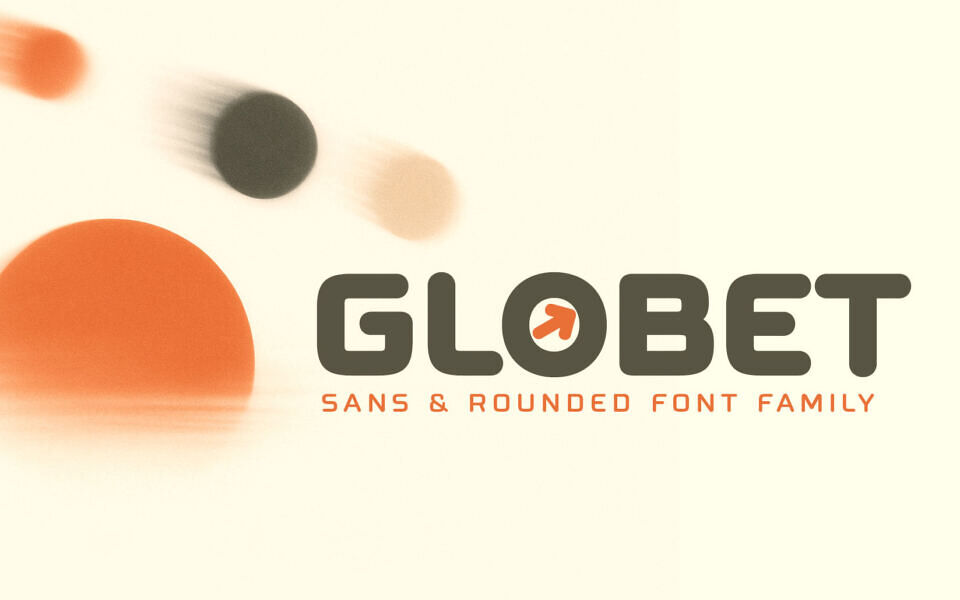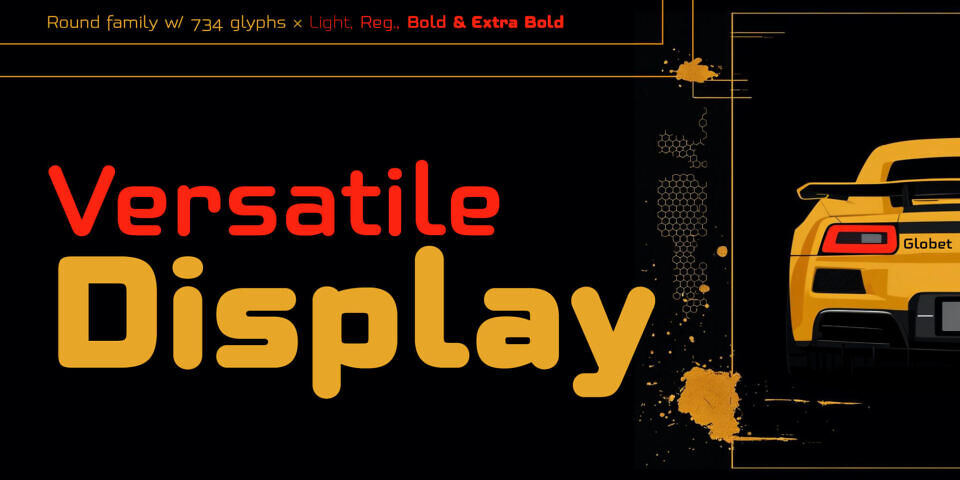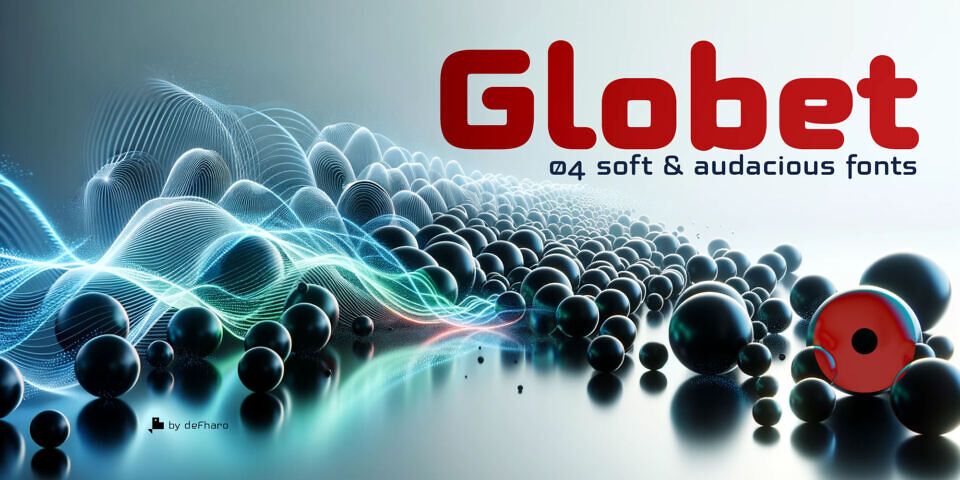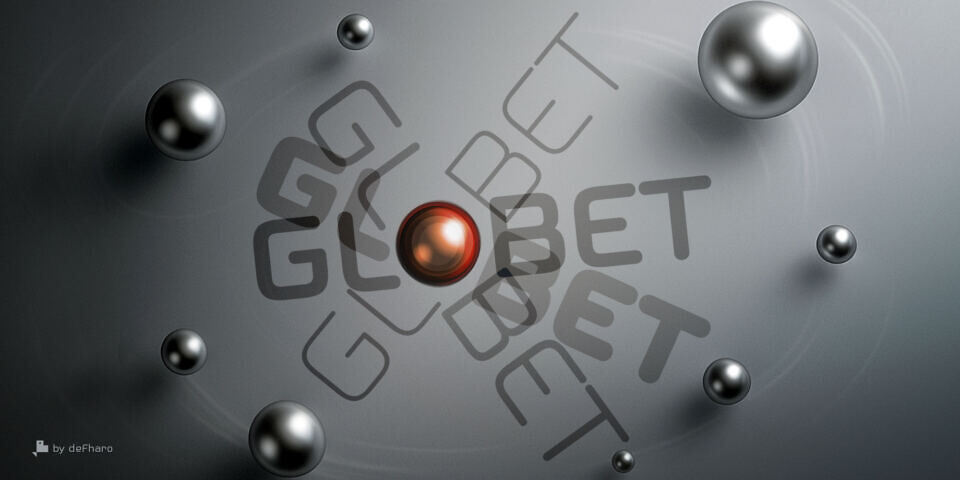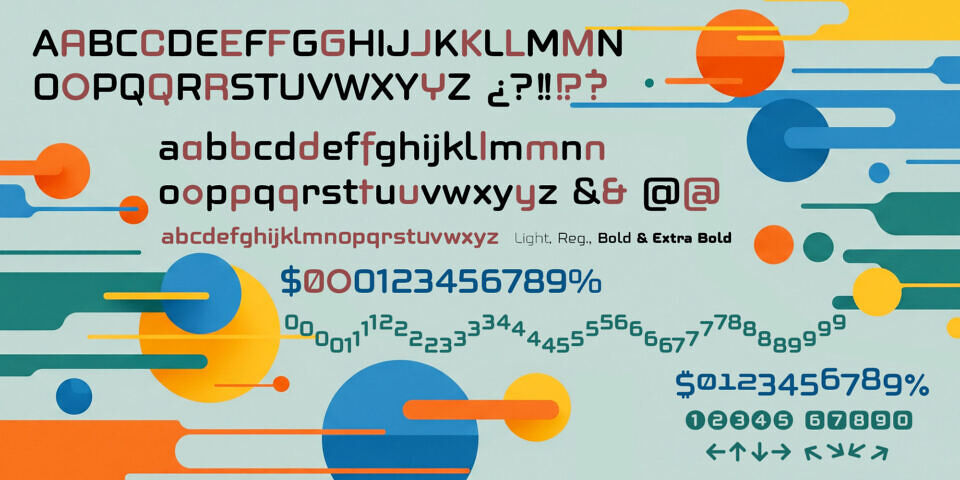
Globet Rounded is a multipurpose conceptual font that perfectly combines boldness with elegance. Globet was born from the desire to balance legibility and personality. Gentle geometry and optical precision come together to create an exceptional reading experience.
Its square proportions provide a solid foundation, while its rounded shapes soften the geometric structure, giving it a friendly, approachable, and modern tone. Rounded typefaces have that unique magic: they communicate with warmth without losing strength; they are versatile, friendly, and highly professional, ideal for brands that want to connect without appearing cold or distant.